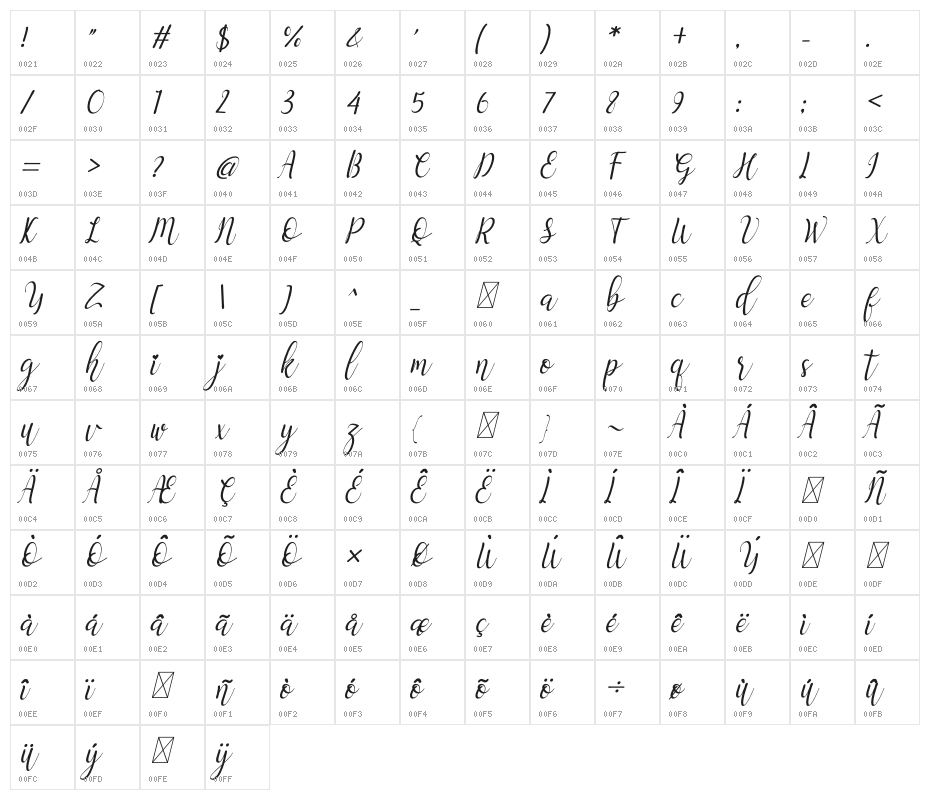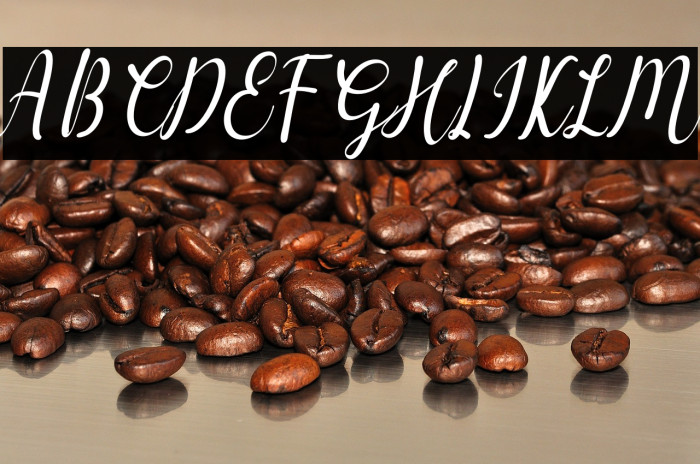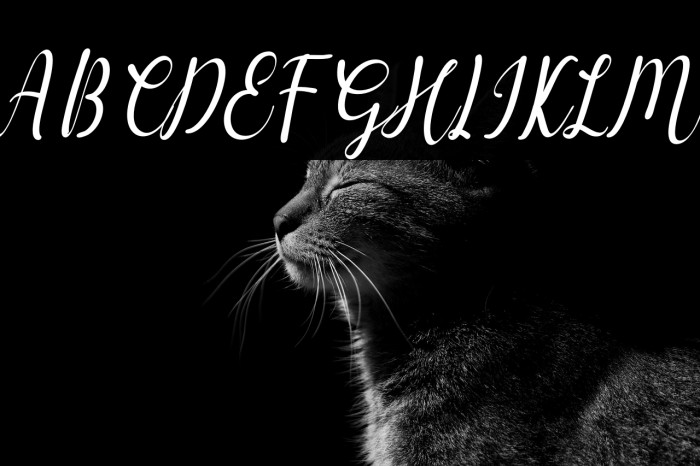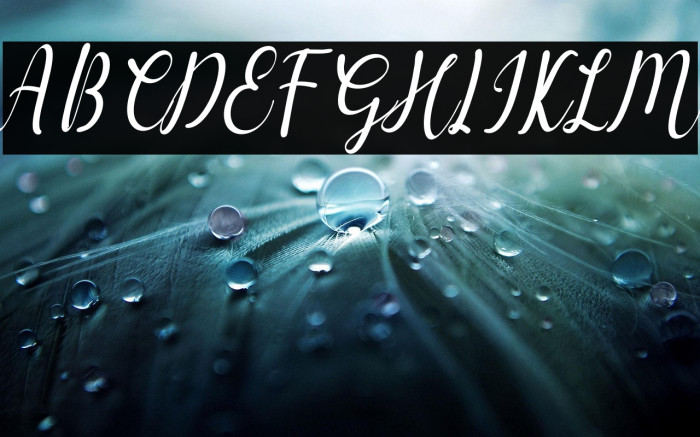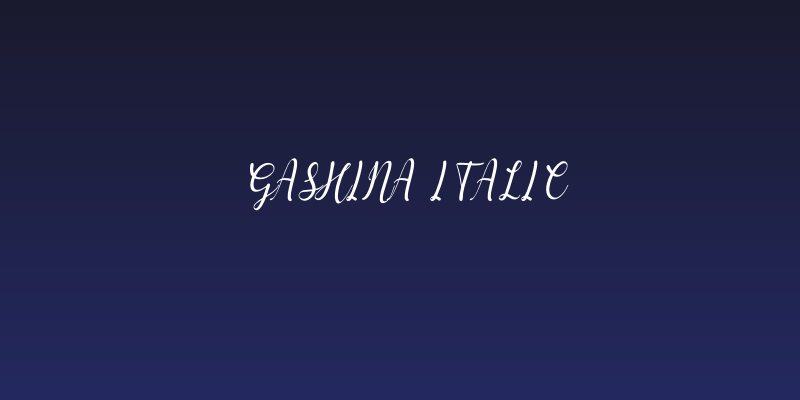
Gashina Italic Font
Gashina Italic Description
This font exudes a lively and elegant script style, characterized by its fluid, cursive strokes and a distinct italic slant. The uppercase letters are tall and graceful, with sweeping ascenders and descenders that add a touch of sophistication. The lowercase letters maintain a consistent flow, enhancing readability while retaining an artistic flair. Numbers are styled to match the cursive nature, ensuring a cohesive look across all characters. Special characters are thoughtfully designed, integrating seamlessly with the overall aesthetic. The font's dynamic and expressive nature makes it ideal for projects that require a personal or creative touch.
Use CaseLogos, Invitations, Greeting Cards
Proposed ProjectsIdeal for wedding invitations, greeting cards, branding, and logo design.